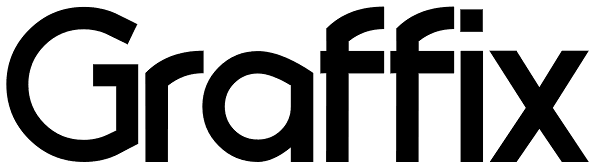
Graffix
Graffix is best described as a modern classic. A crisp geometric sans serif with just a hint of Art Deco in the roll of the capital A, D & R, and the curvaceous lines of the capital M, V & W. The distinctive tear shaped counters of the lower case a...